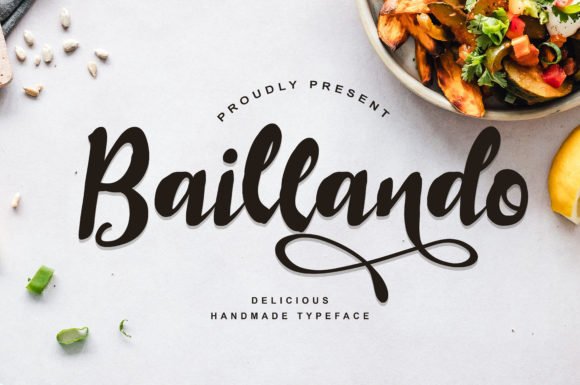
The Perfect Brushstroke: Unlocking the Potential of Baillando Font
Have you ever been in a creative flow, where ideas just seem to pour out of you like water from a faucet? You’re scribbling away, and before you know it, you’ve got a beautiful sketch or a clever phrase that just pops. That’s the magic of creativity, and it’s what makes typography so fascinating.
Enter the Baillando Font, a smooth handwritten font that brings a touch of natural elegance to any design project. With its bold letters and organic feel, it’s perfect for logos, magazines, cover albums, quotes, birthday cards, and much more. For designers, the Baillando Font is a valuable tool that can add a personal touch to any project, making it stand out from the crowd.
Whether you’re a seasoned pro or a design newbie, the Baillando Font is sure to inspire your next creative project. So why not give it a try and see what beautiful things you can create with this versatile and stylish font?
Baillando Font Key Features
- Unique Characteristics: Baillando Font features a unique, elegant script style with flowing connections between letters, making it ideal for creative and artistic designs.
Baillando Font Review
As a designer, I was excited to dive into the Baillando Font. Overall, I think it’s a solid addition to any design library. ✨ Here are a few things that work well:
- The Baillando Font is extremely versatile and can be used in a wide range of applications, from headings to body text.
- The font’s unique, hand-drawn feel adds a touch of personality to any design.
- It’s highly legible, making it perfect for long blocks of text.
However, there are a few limitations I want to highlight: ⚠️
- The font may not be the best choice for titles or headings where a bold, attention-grabbing font is needed.
- Some users may find the font’s unique style too quirky or overwhelming.
Overall, I think the Baillando Font is a great choice for designers who want to add a touch of personality to their work. While it may not be the best fit for every project, it’s a versatile and highly legible font that can add a lot of character to a design. With a little creativity, I think it can be a real game-changer for designers looking to add some visual interest to their work.
Tips: Use Baillando Font for titles and headings to add a touch of elegance to your design.
Tips: Use Baillando Font for logo designs and typography projects to add a unique touch.
Tips: Use Baillando Font for presentations and documents to add a professional touch.
Baillando Font is suitable for:
- Logo designs and branding
- Typography projects and posters
- Presentations and documents
Alternatives to Baillando Font
Lato is a modern sans-serif font that is highly legible and versatile. It’s suitable for both body text and headings, making it a great choice for designs that require a clean and minimalist aesthetic.
Compared to Baillando Font, Lato is more straightforward and lacks the unique flair of Baillando. However, Lato’s simplicity and legibility make it a great choice for designs that require a clear and easy-to-read font.
Montserrat is a geometric sans-serif font that is designed for digital use. It’s highly legible and suitable for a wide range of designs, from body text to headings and titles.
Compared to Baillando Font, Montserrat is more geometric and lacks the rounded edges of Baillando. However, Montserrat’s modern design and high legibility make it a great choice for designs that require a clean and contemporary aesthetic.
Open Sans is a modern sans-serif font that is highly legible and versatile. It’s suitable for both body text and headings, making it a great choice for designs that require a clean and approachable aesthetic.